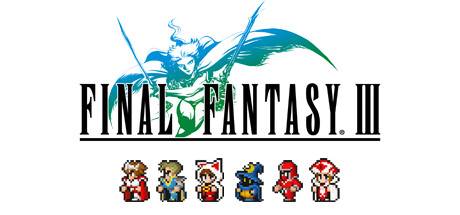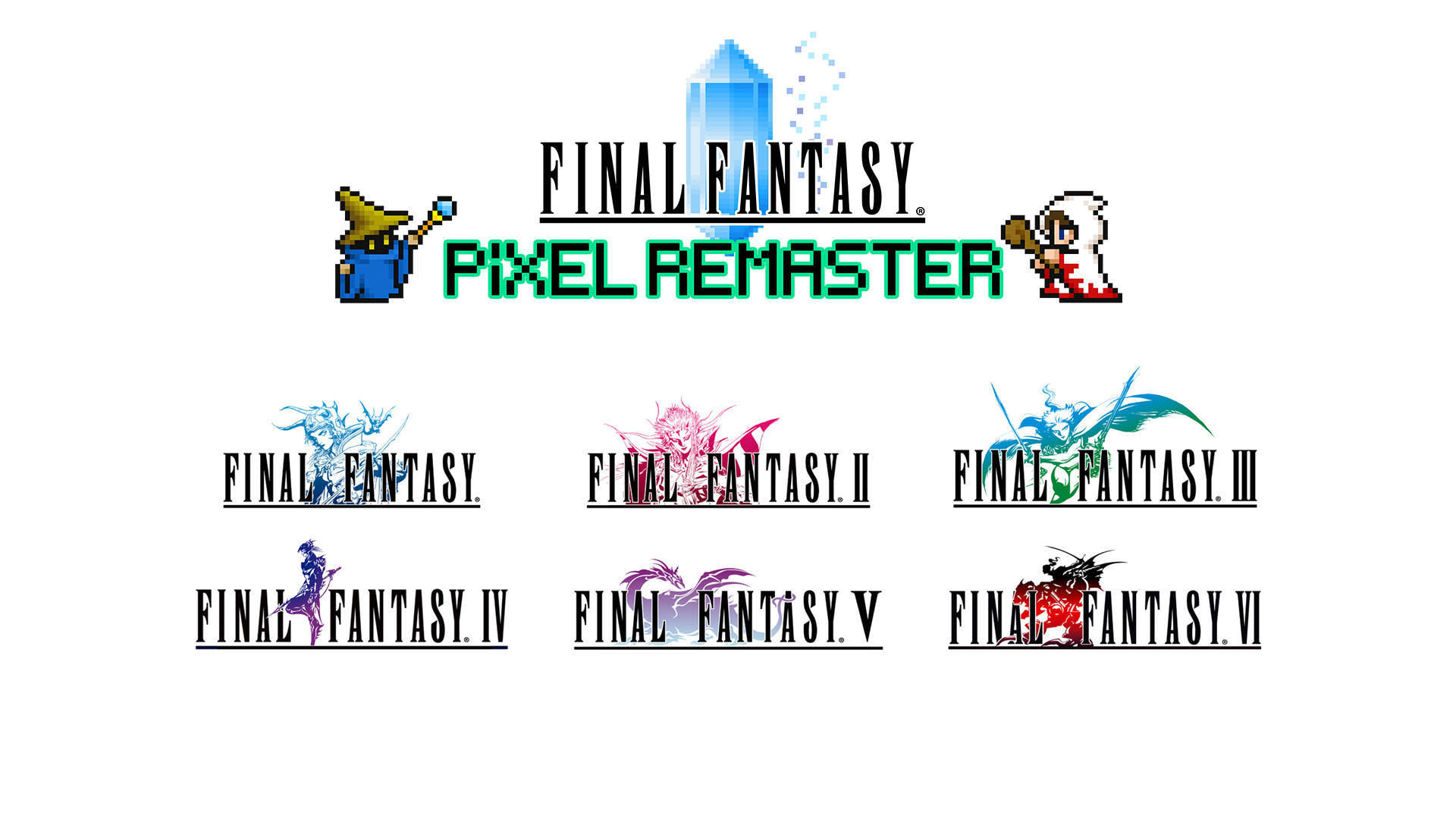
Final Fantasy Font Copy And Paste
The newly done versions brought an unwanted font to. It will serve as backup in case anything got wrong.
Size final fantasy by juan pablo reyes altamirano. I'm trying to duplicate this text in photoshop, so either a name to identify it or a place to copy and paste. Take the japanese files, [font_ja.bundle] and [font_ja.manifest], copy paste them and rename them to “font_en.bundle” and “font_en.manifest” (to replace what you deleted), then do the same with your language files.
Create a new folder here (personally i named it “backup”), and copy all the fonts in it. That is, its designers have chosen a beautiful 80s font that has been known and released for the past three decades. Download free font final fantasy vii.
The default font is arial. Square enix released the final fantasy pixel remasters of final fantasy, final fantasy 2, and final fantasy 3 today. The font used for the “shadowbringers” part is a modified version of canada type’s jupiter bold.the “final fantasy xiv” lettering resembles a free.
In the year 1987, square enix released the first version of the series for the nes console. Final fantasy by juan pablo reyes altamirano. Delete font_en.bundle and font_en.manifest (no need to backup the files.
Final fantasy font | dafont.com english français español deutsch italiano português. Copy both font_ja.bundle and font_ja.manifest. I still prefer the original font (also i think i'm one of the few who prefers the grey menu too), but this isn't bad either.